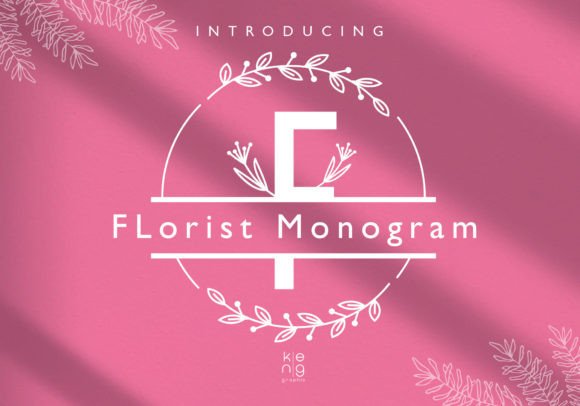
Unleash the captivating allure of Florist Monogram Font, a decorative masterpiece that will ignite your designs with an irresistible charm. Step into a realm of boundless creativity, where every word dances off the page with undeniable elegance and boldness. Crafted by the visionary minds at Keng Graphic, this font is not merely a collection of letters; it's a symphony of artistic expression, ready to elevate your creations to new heights.
Immerse yourself in the world of Florist Monogram Font, and let your imagination soar. Its meticulously crafted curves and delicate flourishes exude a timeless sophistication that will grace any project with an air of grandeur. Whether it's a captivating poster title that demands attention, a heartfelt love shirt that speaks volumes, or an eye-catching social media post that sparks conversations, this font is your ultimate ally.
Visualize your designs adorned with the captivating presence of Florist Monogram Font. Your words will transform into captivating works of art, radiating an enchanting aura that transcends the ordinary. Its versatility knows no bounds; it effortlessly complements modern and traditional aesthetics alike, making it the perfect choice for a wide range of projects. Unleash your creativity and witness how this font elevates your designs to new heights of visual excellence.
But beyond its aesthetic allure, Florist Monogram Font carries a profound emotional weight. It embodies the spirit of youthfulness and courage, empowering you to express yourself with unwavering confidence. Its whimsical strokes evoke a sense of playful elegance, while its bold curves instill a sense of unwavering determination. With every design you create using this remarkable font, you'll not only captivate your audience but also ignite a spark of inspiration within yourself.
So, embrace the transformative power of Florist Monogram Font, and embark on a creative journey where your designs blossom into captivating masterpieces. Let your imagination run wild, and experience the sheer joy of creating with a font that empowers you to make your mark on the world.